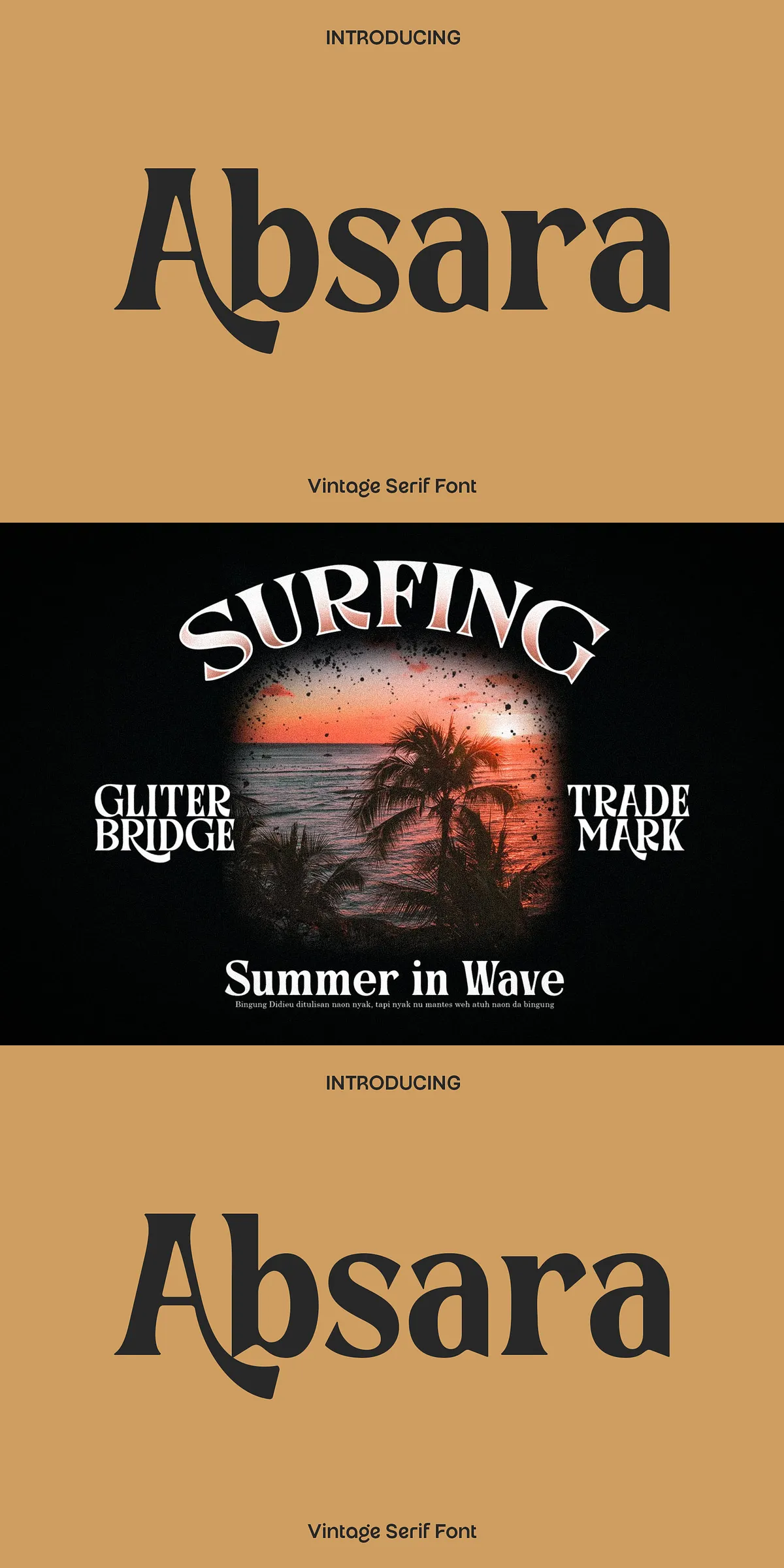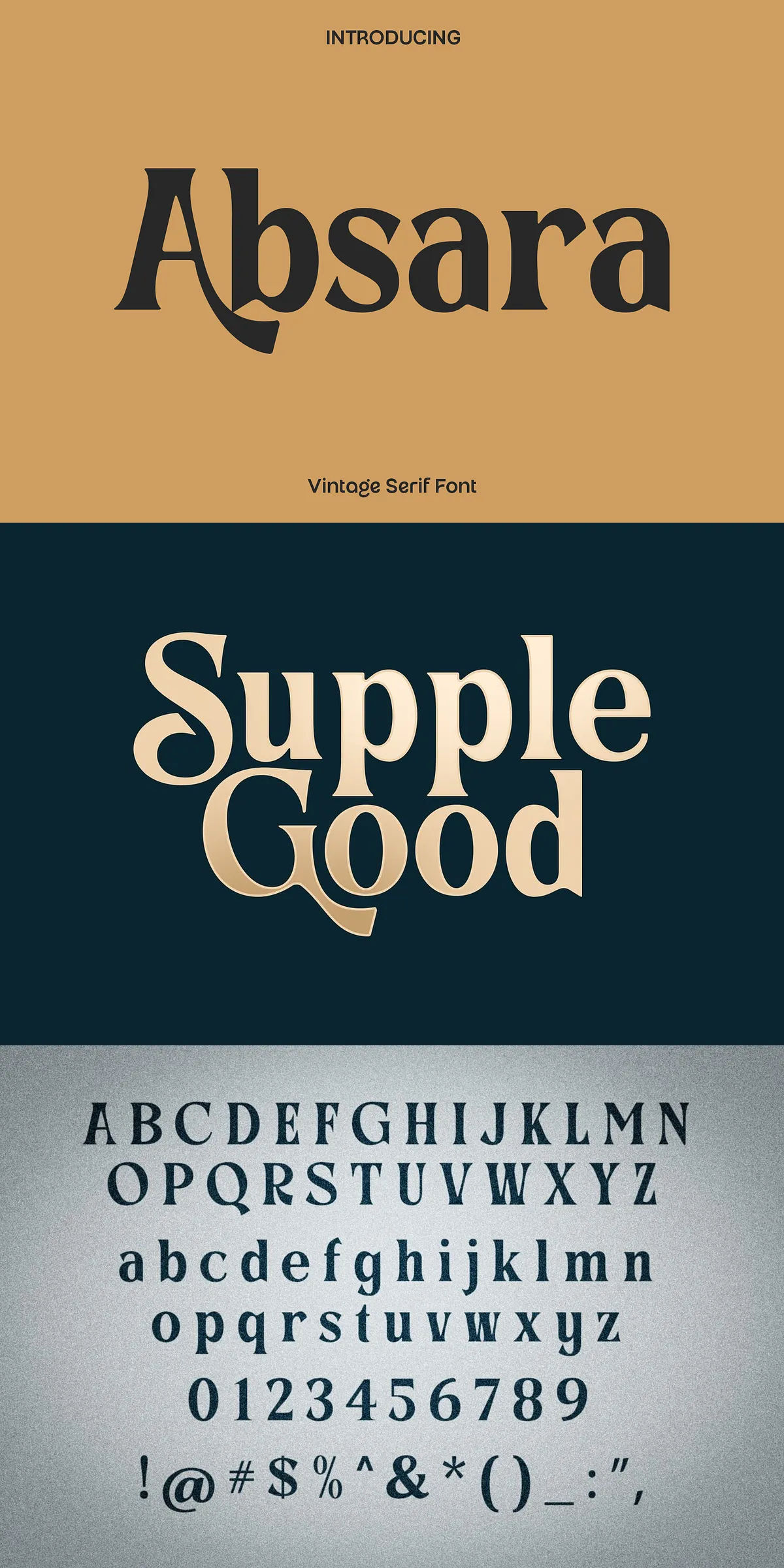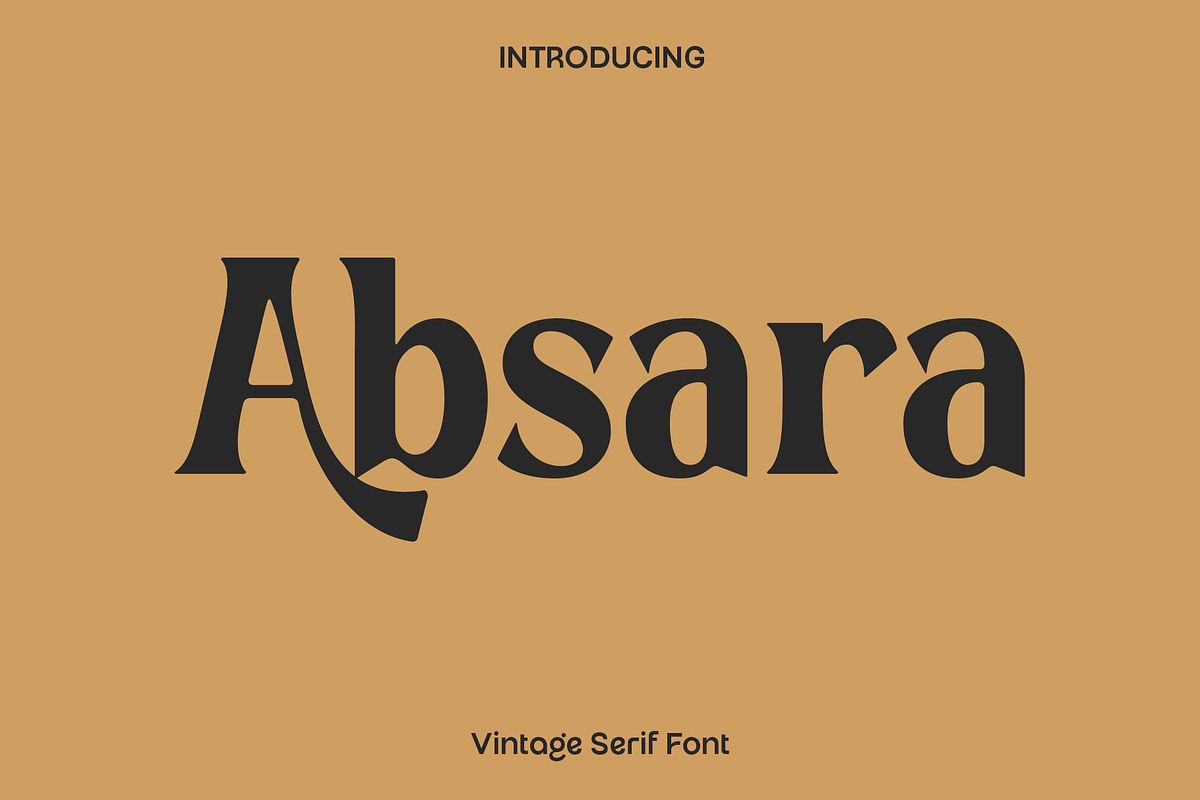
Absara injects bold, nostalgic personality directly into your visual language. Inspired by classic retro signage and vintage advertising, Absara brings warm curves, confident stroke endings, and well-balanced proportions that read clearly at display sizes. Designers who want to evoke authenticity and handcrafted charm will find Absara immediately usable for headlines, logotypes, and artful packaging. The letterforms convey character without sacrificing legibility, so you can apply Absara to print and digital outputs with confidence.
Explore Versatile Uses Across Branding Packaging And Editorial Work
Use Absara to construct memorable brand marks, posters that demand attention, apparel graphics with vintage flair, and packaging that communicates craft and heritage. The font performs well on signage, labels, social media graphics, and editorial headlines. Because Absara combines expressive shapes with practical readability, it suits both headline-driven layouts and focal identity elements. Apply strong tracking for authentic retro posters, tighten spacing for logotypes, or pair Absara with a clean sans-serif for contemporary contrast.
Robust Glyph Set And Alternates For Creative Typography
Absara ships with a complete set of uppercase and lowercase characters, numerals, punctuation, and functional symbols. The included alternate glyphs cover A to Z, giving you immediate options to craft bespoke wordmarks and distinctive letter combinations. Swap alternates to create handcrafted ligatures or to emphasize specific letters in a headline. These alternates expand creative possibilities and make it easy to produce visually unique typographic treatments without manual drawing.
Design Features That Enhance Practical Workflow And Flexibility
Absara balances decorative presence with technical readiness. The font provides consistent metrics and predictable spacing so designers can integrate it smoothly into production. Absara performs reliably across high-resolution print, large-format signage, and digital screens. Use vector-friendly file formats to ensure sharp output, and rely on the alternate glyphs to refine word shapes for tighter compositions. Absara’s structure supports quick mockups and final art—helping teams move from concept to deliverable faster.
Clear Readability Paired With Expressive Retro Style
Absara emphasizes strong, readable forms while retaining vintage aesthetics: pronounced curves, purposeful terminals, and balanced counters produce a warm, legible texture. At display sizes the personality emerges; at medium sizes the forms remain comfortable to read. This combination makes Absara a practical choice for designers who want character without compromising audience comprehension.
Practical Recommendations For Production And Pairing Choices
For branding, start with Absara for the headline or mark and pair it with a neutral sans-serif for body copy. On packaging, use the alternates to create signature wordmarks and differentiate product lines. When designing apparel or merchandise, convert critical outlines after final approvals to preserve letter shapes. For web use, choose WOFF/WOFF2 delivery and define font-display behavior to preserve perceived performance. Test color contrasts and textured backgrounds to ensure the vintage details remain visible.
Why Absara Becomes The Go-To For Retro And Handcrafted Projects
Choose Absara when you need a bold, expressive display font that channels retro authenticity and modern usability. Its alternate glyphs and vintage-driven structure let you craft memorable headlines, logos, and packaging systems quickly. Absara transforms ordinary type into evocative visual storytelling—delivering warmth, personality, and handcrafted appeal across print and digital formats.